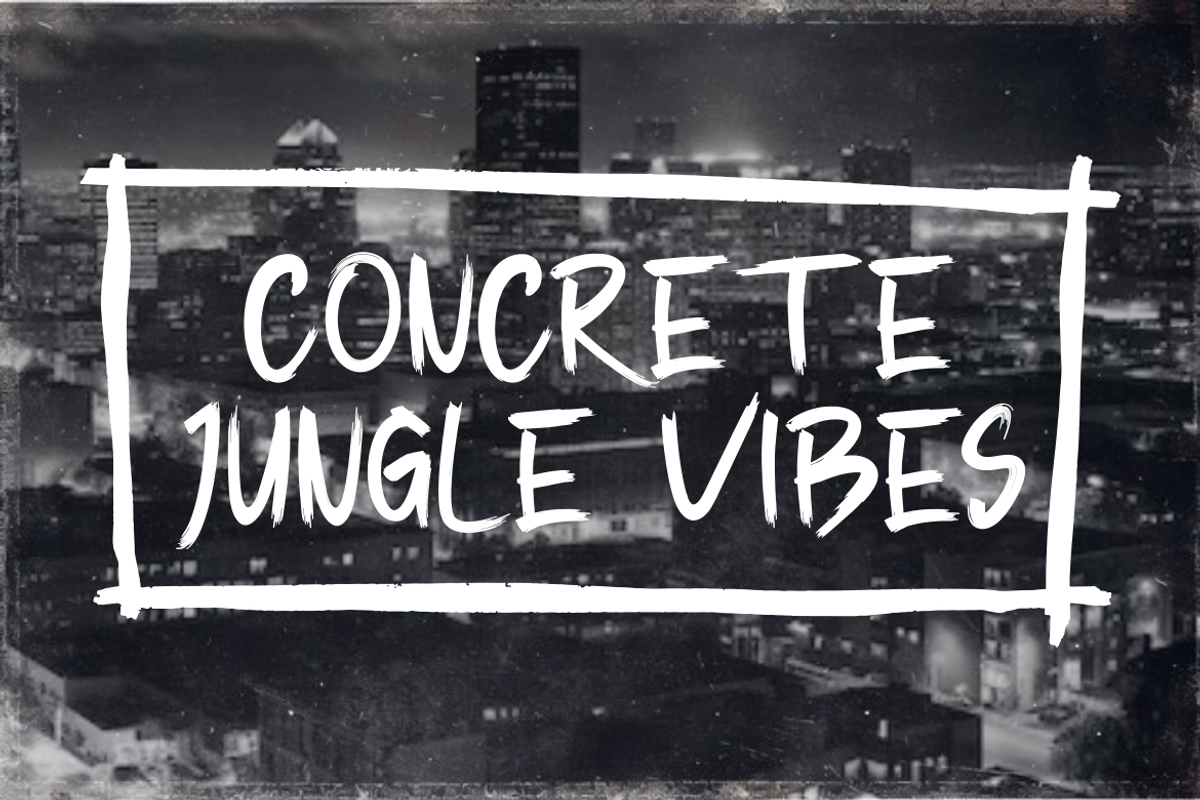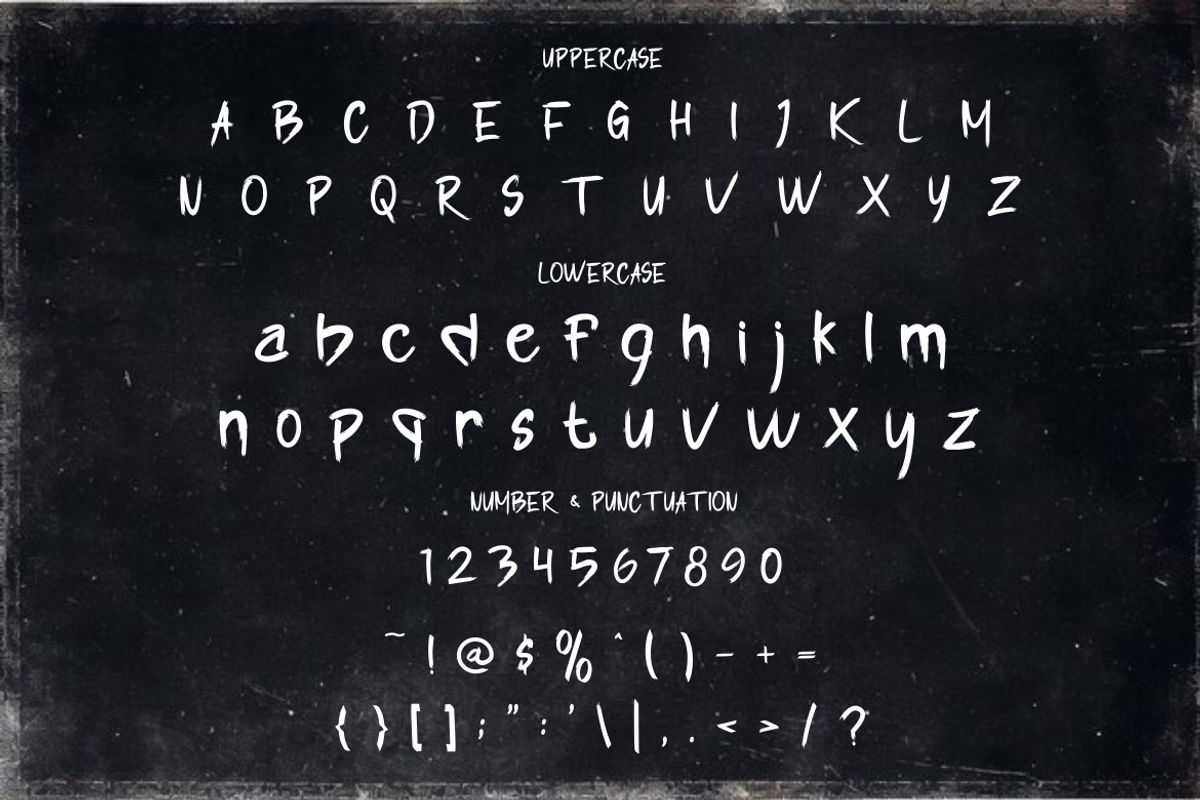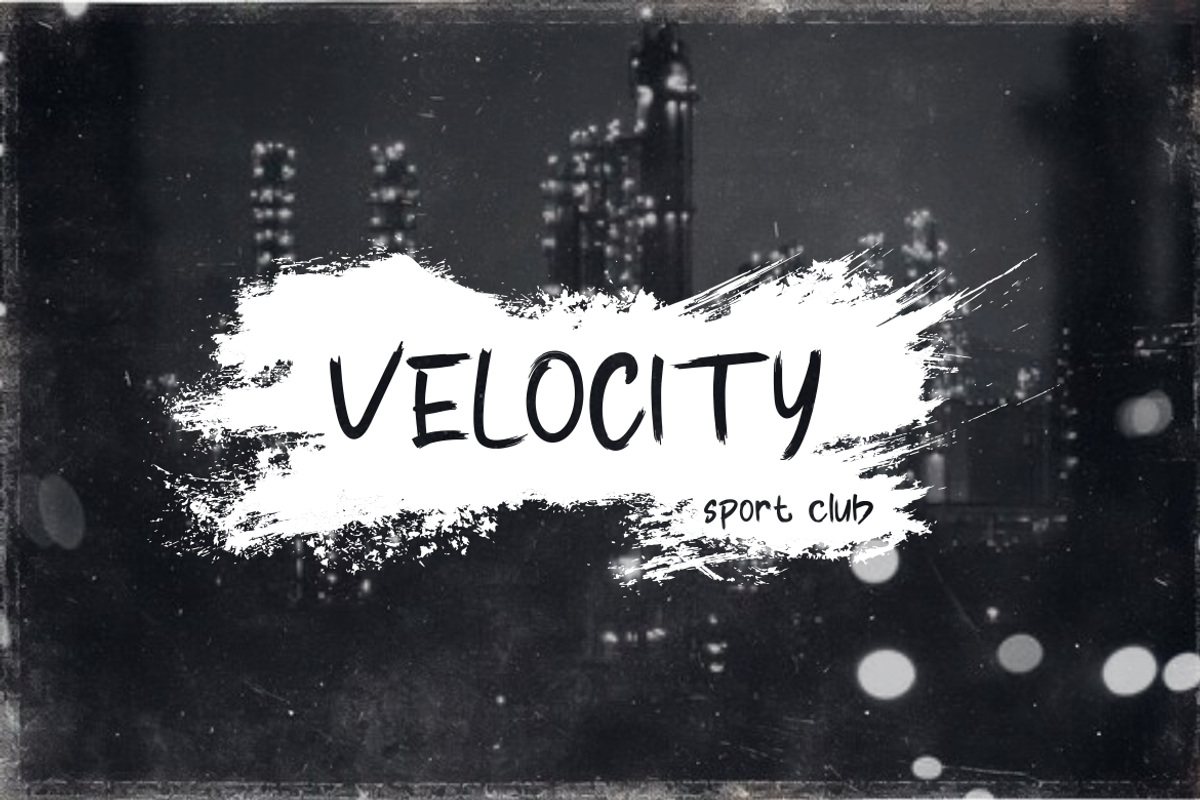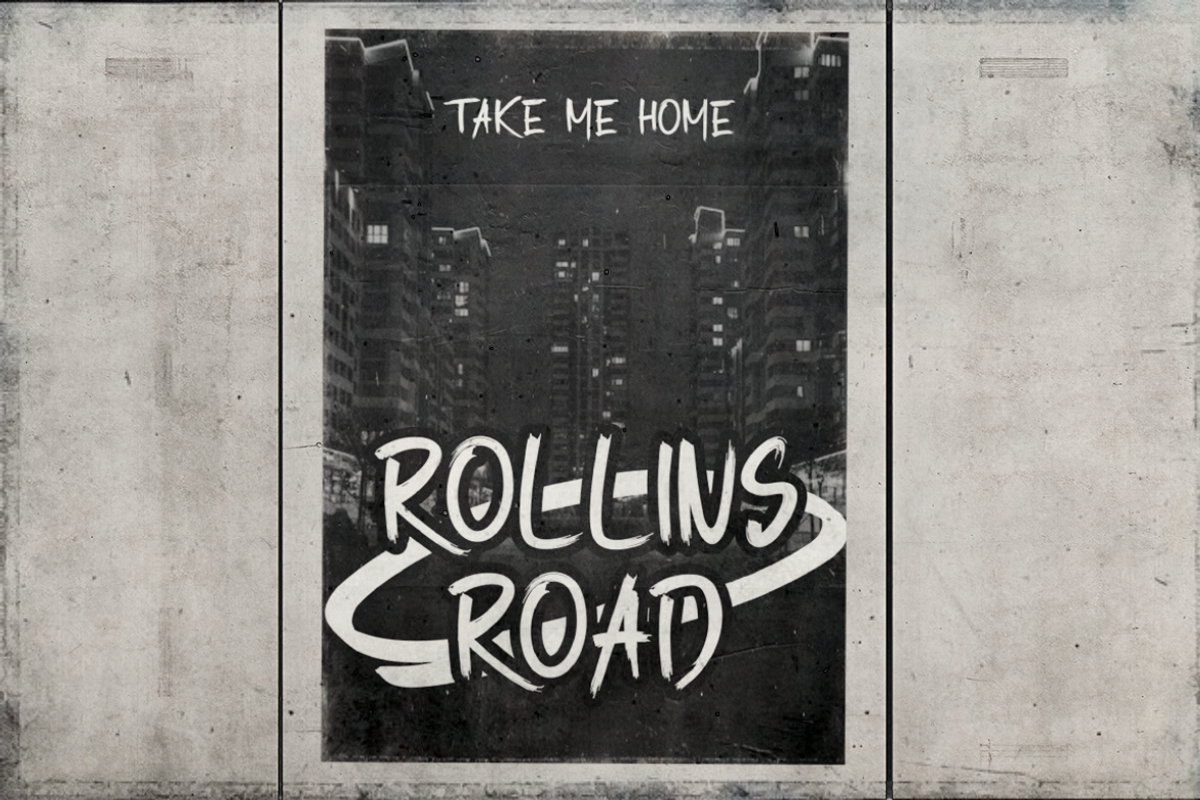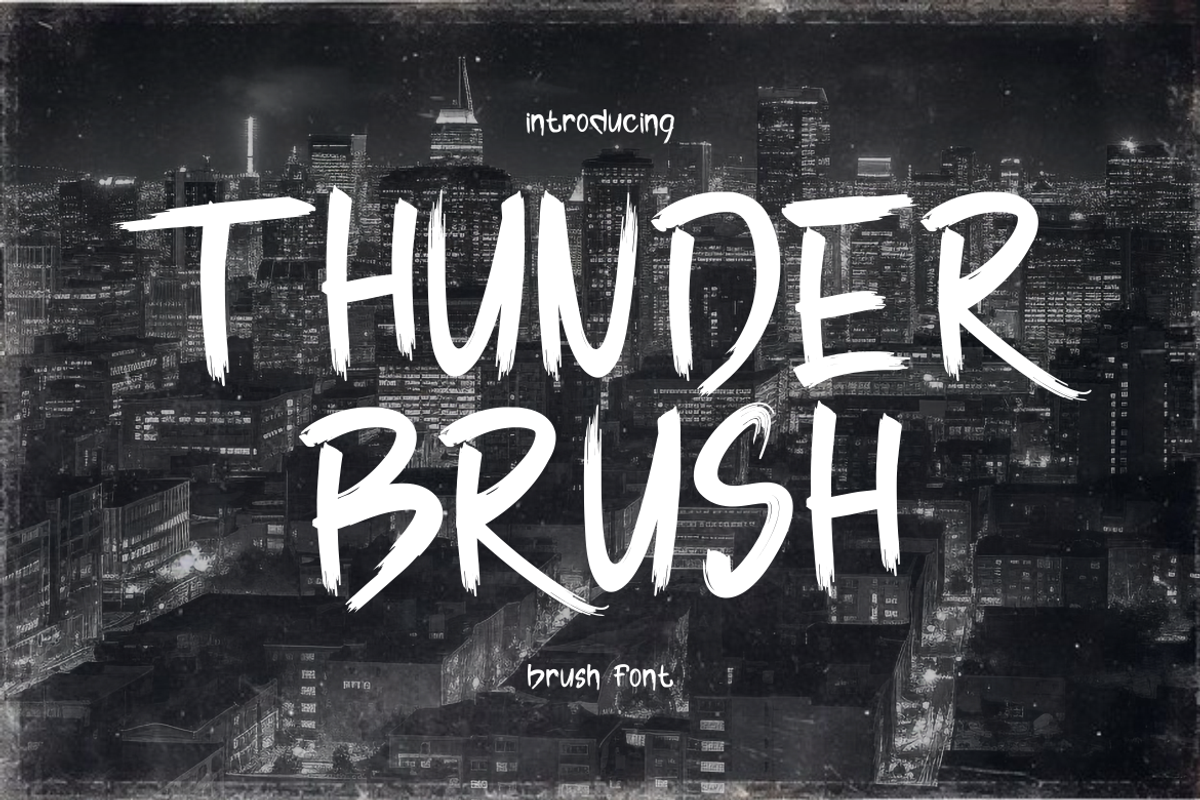
Thunder Brush - Brush Font
Introducing Thunder Brush - Brush Font, a bold and energetic typeface designed for those who want to make a powerful statement! This hand-brushed font features sharp strokes, rough textures, and dynamic edges that mimic real brush strokes, giving it an intense and raw feel. The slightly uneven and distressed appearance adds a grunge-like aesthetic, making it perfect for modern urban designs. The font is set against a dark, moody cityscape background, enhancing its edgy, rebellious vibe. With its high-impact and aggressive style, Thunder Brush is ideal for sports branding, movie titles, music covers, and streetwear designs that demand attention.
Whether you're crafting a bold logo, designing a high-energy poster, or creating standout merchandise, Thunder Brush delivers a powerful visual impact. Its rugged and expressive strokes make it a go-to choice for projects that need an authentic, handmade touch. Perfect for advertising, social media posts, magazine covers, and graffiti-inspired artwork, this font will amplify any design with its fearless attitude. If you’re looking for a brush font that radiates power, intensity, and street-style energy, Thunder Brush is the ultimate pick!